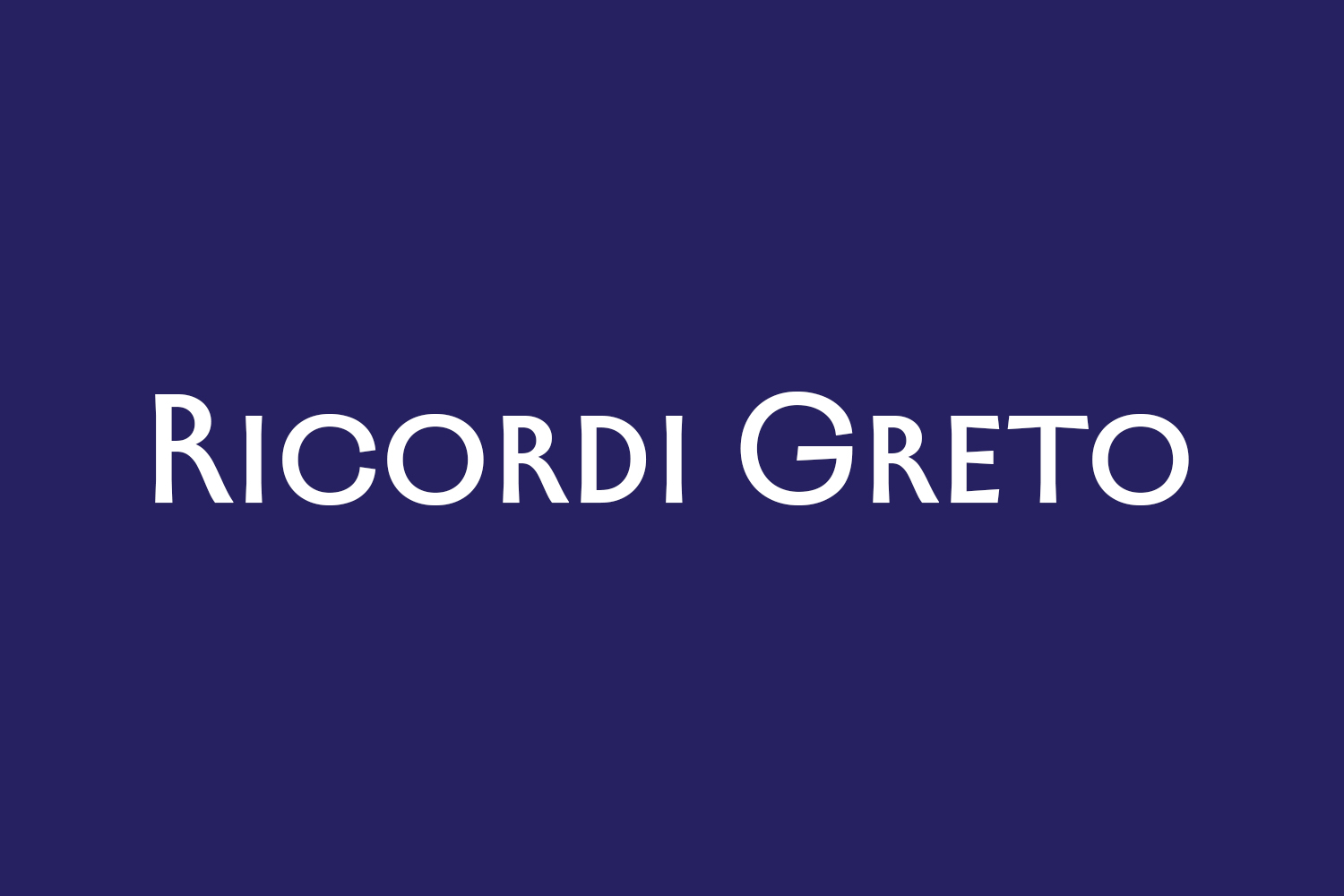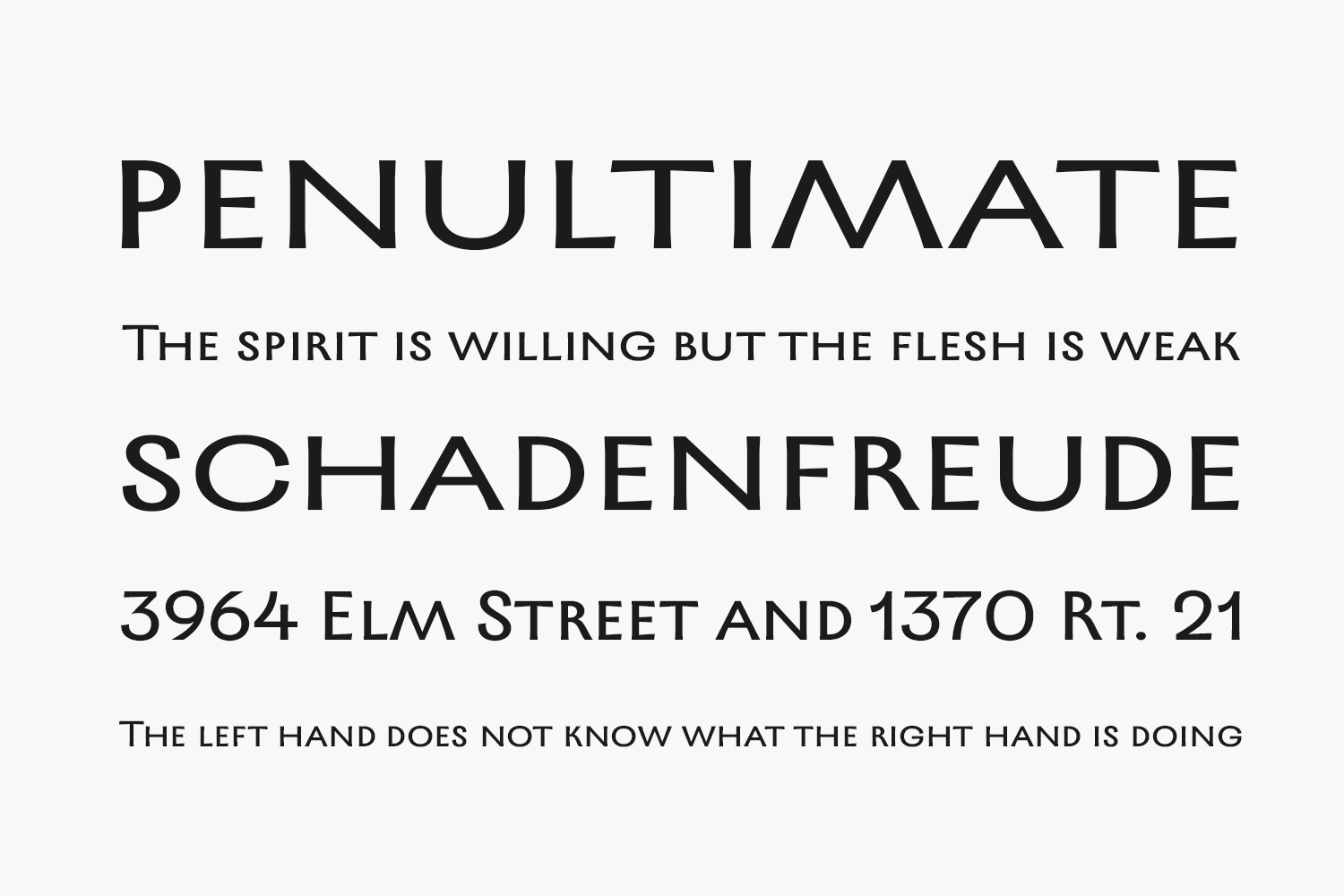
Introducing Ricordi Greto Free Font Family, the sleek and modern sans serif font that is bound to leave a lasting impression. With its clean lines and minimalist aesthetic, this free font is the perfect choice for designers looking to make a statement with their typography.
Ricordi Greto is both elegant and versatile, making it ideal for a wide range of applications, from logos and branding to web design and editorial layouts. Its simple yet stylish design will help your content stand out, while its legibility ensures that your message is always clear and easy to read.
Designed by TypeType Foundry